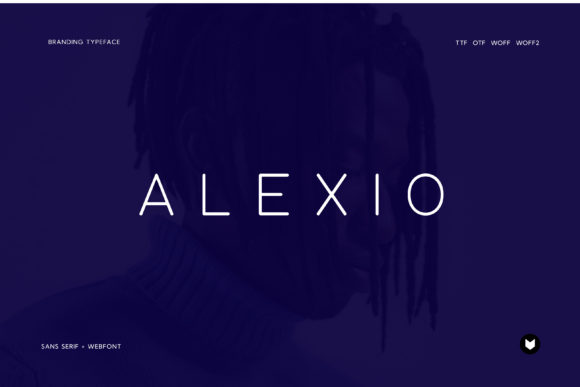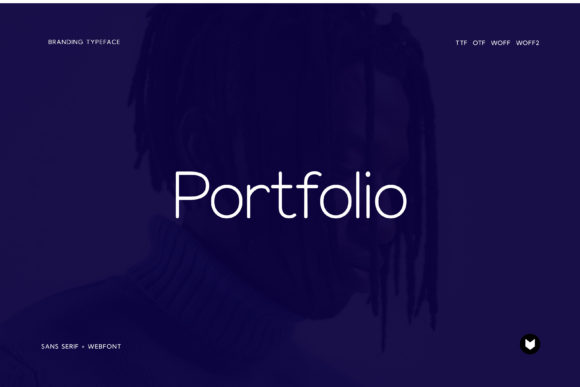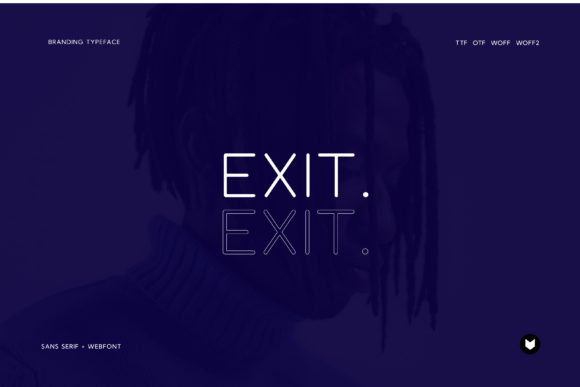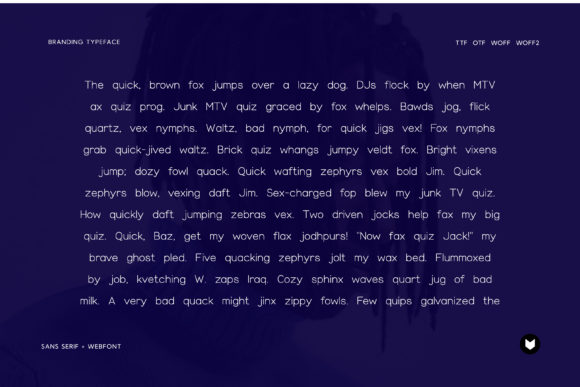
Introducing Alexio Font: The Ultimate Sans Serif for Creative Projects
Are you tired of using the same old fonts for your creative projects? Look no further! Alexio Font is here to revolutionize your designs with its minimal and neat sans serif style. This versatile font can be matched with an incredibly large set of projects, making it the perfect addition to your creative toolkit.
What is Alexio Font?
Alexio Font is a modern sans serif font that exudes simplicity and elegance. Its clean lines and minimalist design make it perfect for a wide range of applications, from digital designs to print materials. Whether you’re working on a logo, brochure, or website, Alexio Font is sure to make your project stand out.
Key Features of Alexio Font
- Minimal and Neat Design: Alexio Font boasts a clean and minimalist design that will give your project a professional and modern look.
- Versatility: This font can be used for a wide range of projects, including logos, brochures, websites, and more.
- Sans Serif Style: The sans serif style of Alexio Font makes it perfect for digital designs and print materials.
- Easily Readable: The font is designed to be easily readable, making it perfect for body text and headings.
Why Choose Alexio Font?
There are many reasons why you should choose Alexio Font for your next project. Here are a few:
- Unique and Modern Look: Alexio Font will give your project a unique and modern look that will set it apart from the rest.
- Highly Versatile: This font can be used for a wide range of projects, making it a great addition to your font library.
- Easy to Read: The font is designed to be easily readable, making it perfect for body text and headings.
- Supports Multiple Languages: Alexio Font supports multiple languages, making it a great choice for international projects.
How to Use Alexio Font
Using Alexio Font is easy! Here are a few tips to get you started:
- Pair it with Other Fonts: Alexio Font can be paired with other fonts to create a unique and interesting look.
- Use it for Headings and Body Text: The font is designed to be easily readable, making it perfect for both headings and body text.
- Experiment with Different Sizes and Colors: Alexio Font can be used at a variety of sizes and colors to create a unique look.
Who Can Benefit from Alexio Font?
Alexio Font is perfect for a wide range of designers and crafters, including:
- Graphic Designers: Alexio Font is perfect for graphic designers who need a versatile and modern font for their projects.
- Web Designers: The font is designed to be easily readable on digital devices, making it perfect for web designers.
- Crafters and Makers: Alexio Font can be used for a wide range of craft projects, including handmade cards, invitations, and more.
- Marketing and Advertising Professionals: The font is perfect for marketing and advertising professionals who need a modern and professional font for their campaigns.
In conclusion, Alexio Font is a versatile and modern sans serif font that is perfect for a wide range of creative projects. Its minimal and neat design makes it easy to read and versatile enough to be used for both headings and body text. Whether you’re a graphic designer, web designer, crafter, or marketing professional, Alexio Font is sure to become a valuable addition to your toolkit.